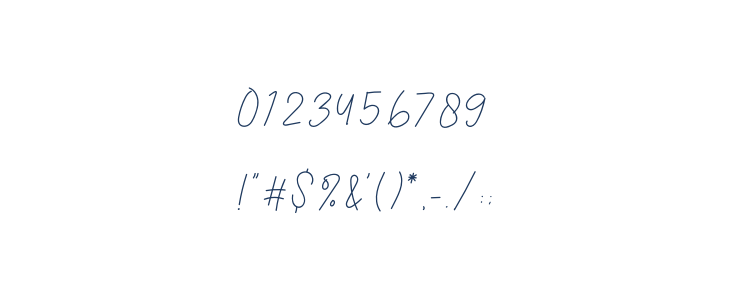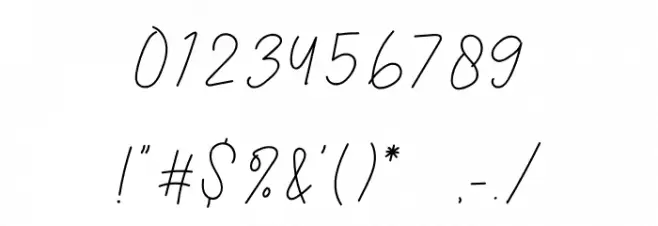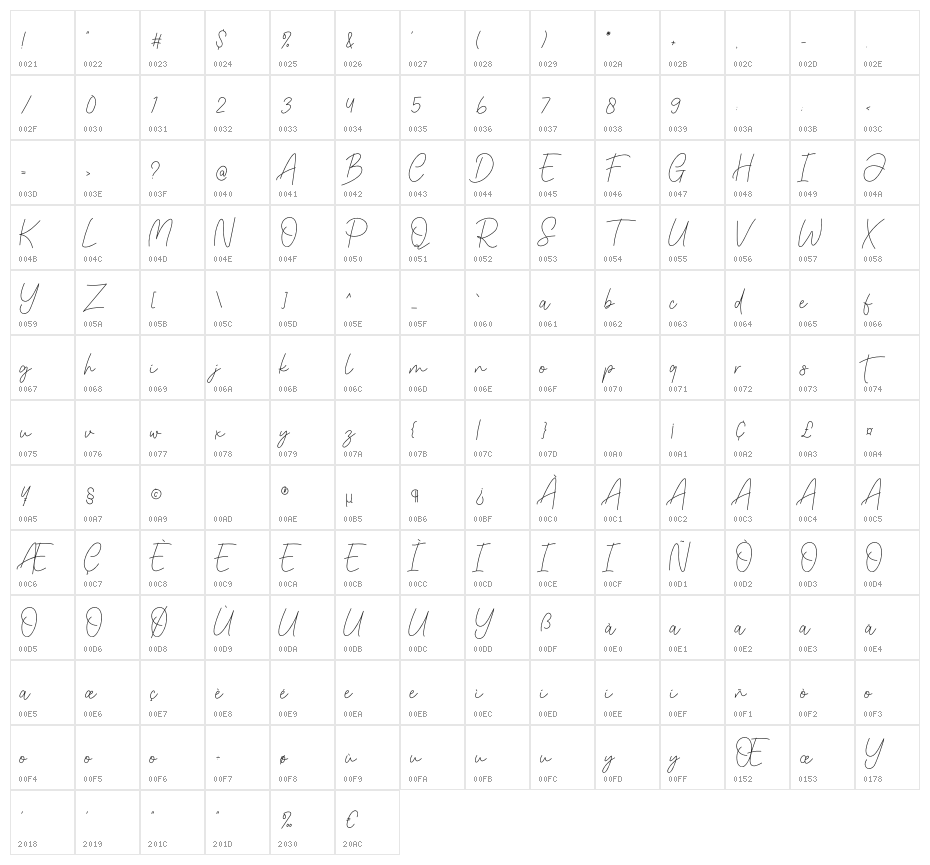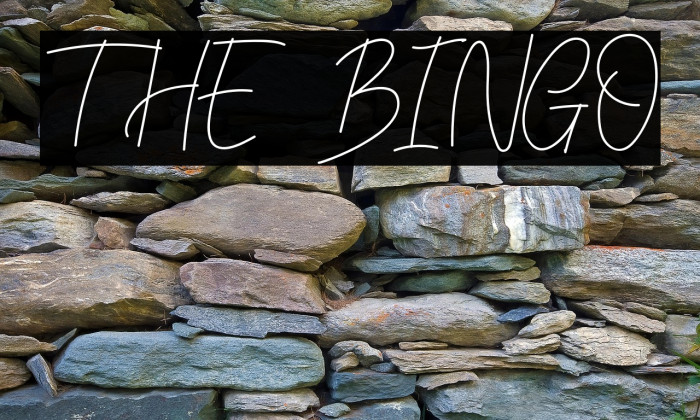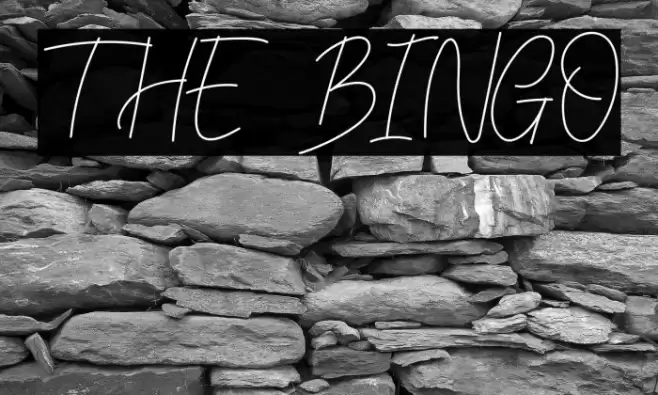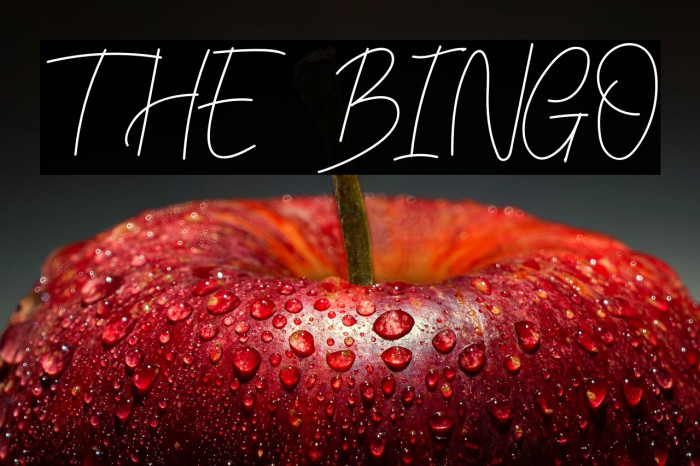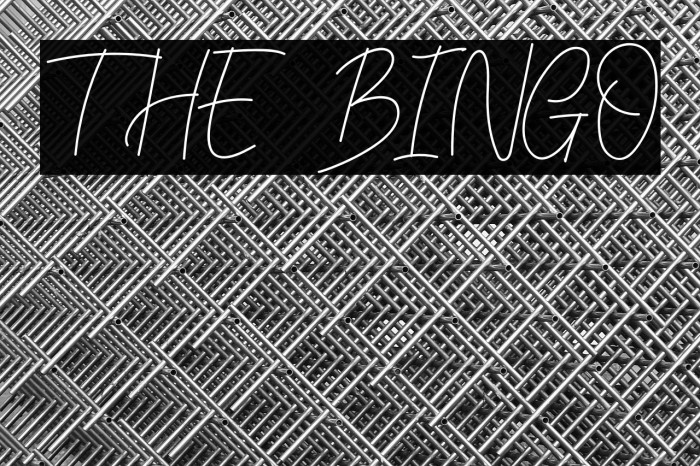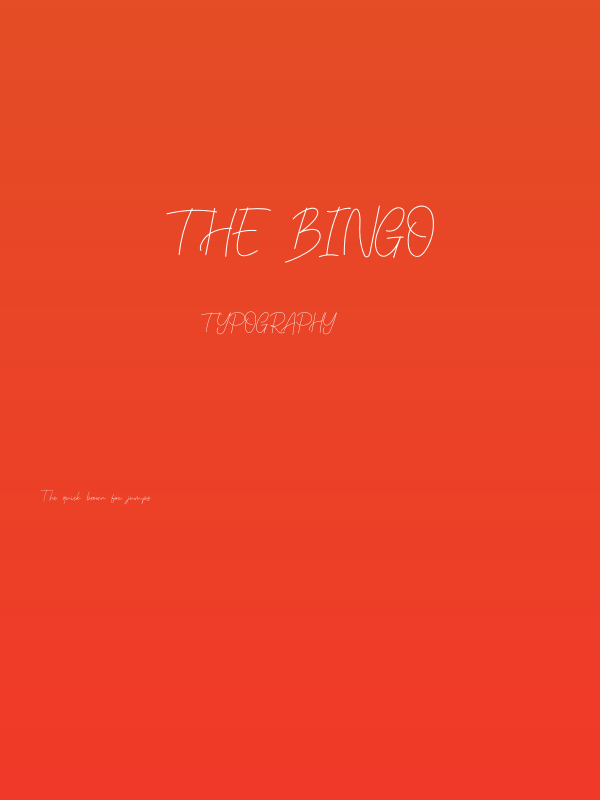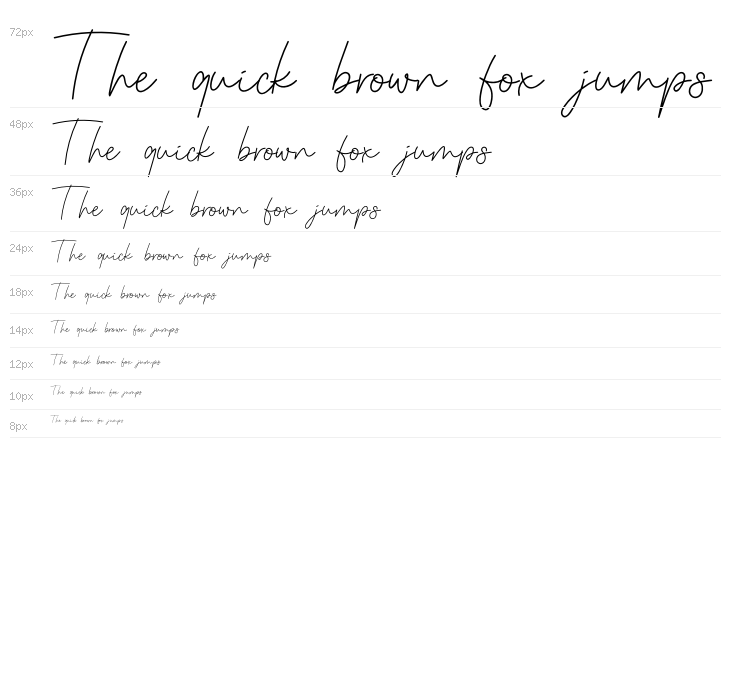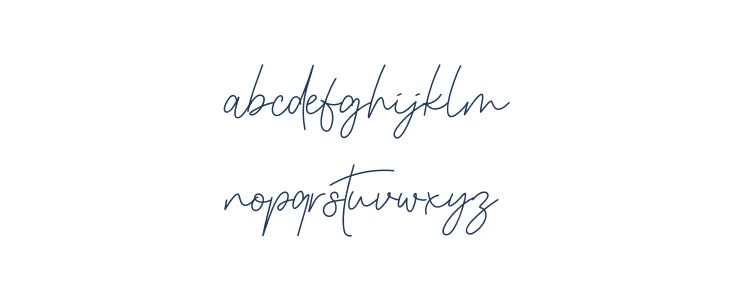
THE BINGO Font
THE BINGO Description
This font features a flowing, cursive style with a modern touch. The uppercase letters are tall and elegant, with smooth, continuous strokes that give a sense of fluidity and grace. The lowercase letters maintain the same fluidity, with some characters having distinctive loops and curves that add a playful yet sophisticated feel. The numerals are consistent with the overall style, offering a sleek and cohesive look. Special characters are designed with the same attention to detail, ensuring they blend seamlessly with the letters and numbers. This font exudes a sense of elegance and creativity, making it perfect for artistic and expressive projects.
Use CaseLogos, Invitations, Artistic projects
Proposed ProjectsIdeal for wedding invitations, greeting cards, branding, and artistic projects.